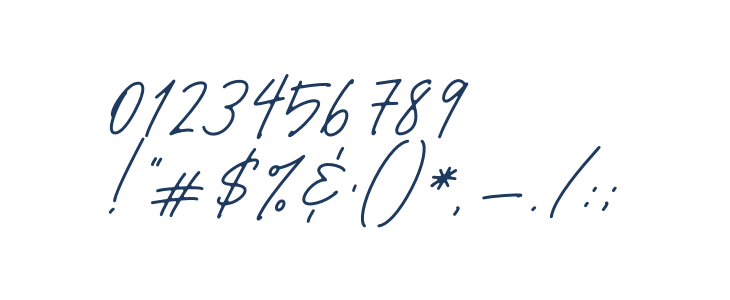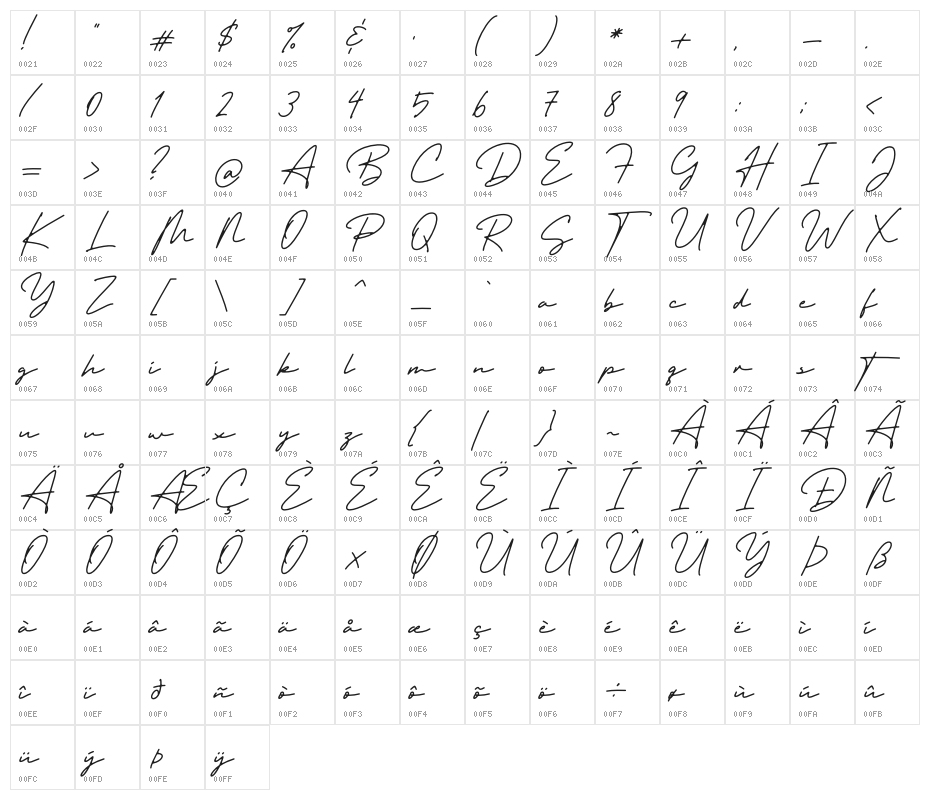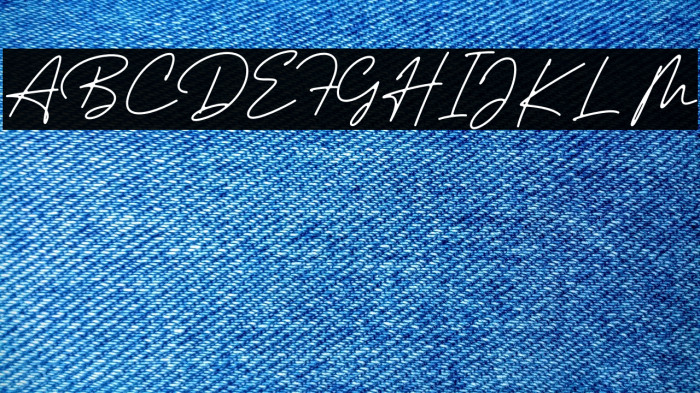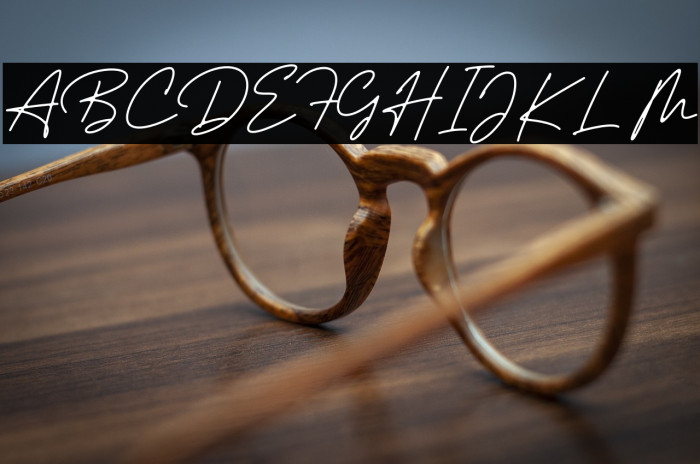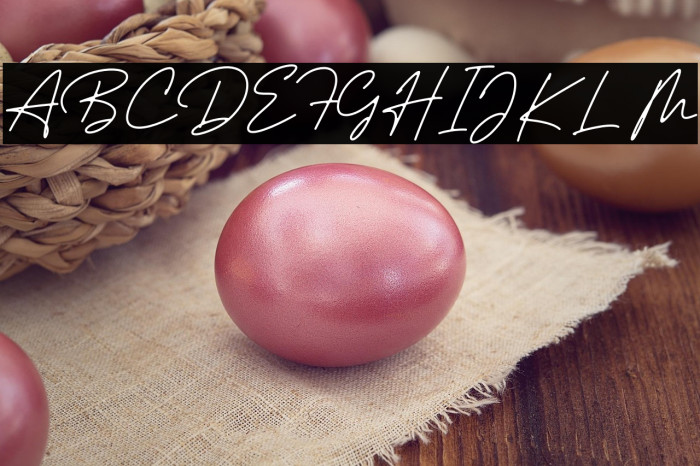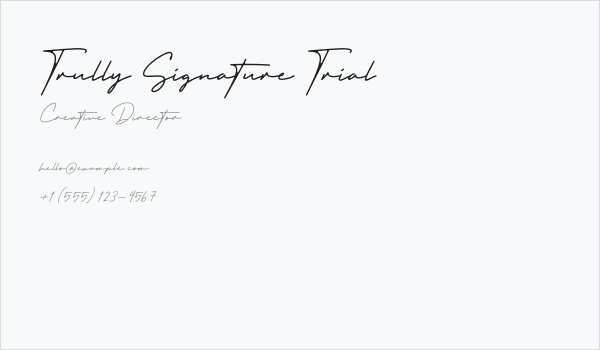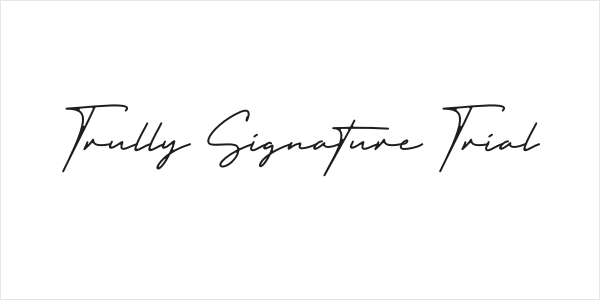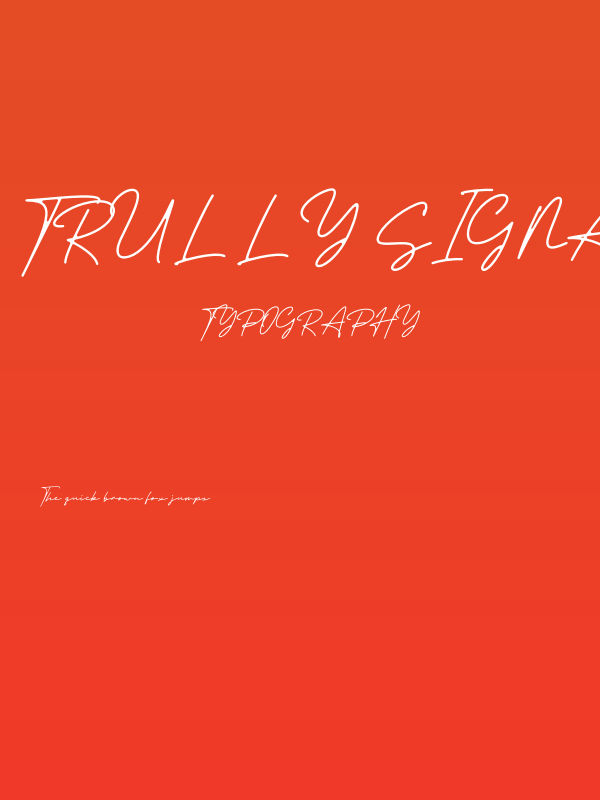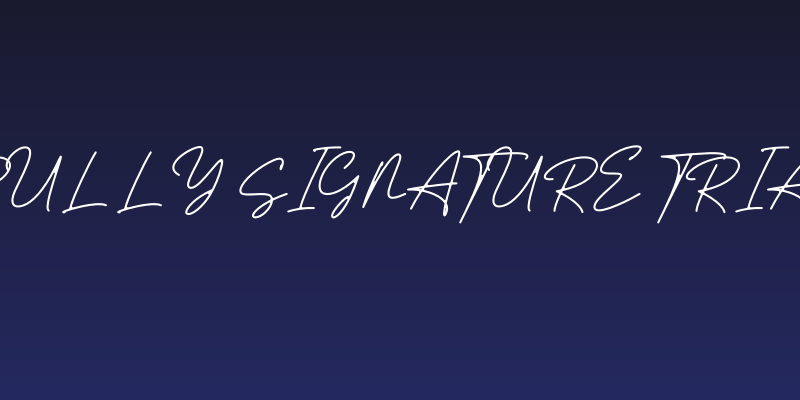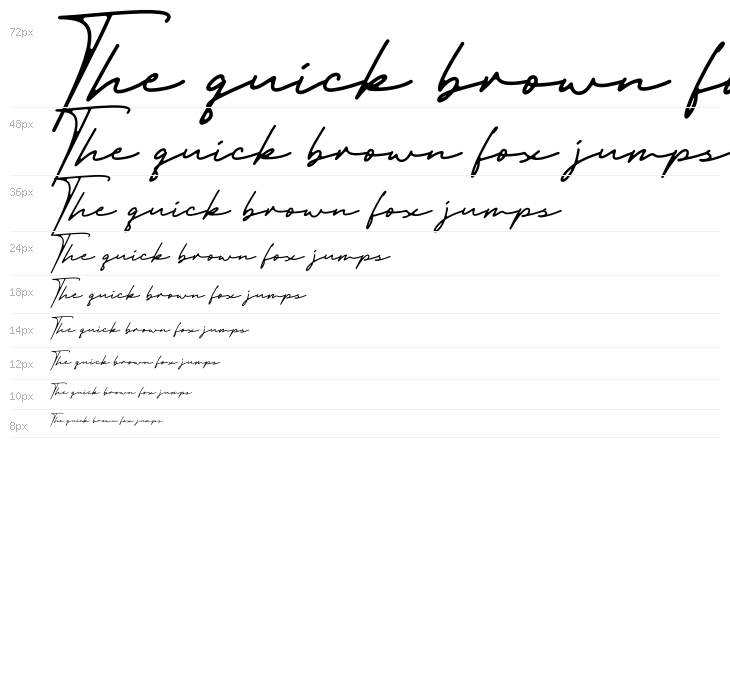
Trully Signature Trial Font
Trully Signature Trial Description
This font exudes a modern, handwritten style with a fluid and elegant script. The characters are connected, creating a seamless flow that mimics natural handwriting. The uppercase letters are slightly more structured, while the lowercase letters maintain a casual and relaxed appearance. Numbers and special characters are consistent with the overall style, offering a cohesive look. The strokes vary in thickness, providing a medium contrast that enhances readability while maintaining an artistic flair. This font captures the essence of personal touch and sophistication.
| Proposed Projects | Ideal for wedding invitations, personal branding, greeting cards, and elegant logos. |